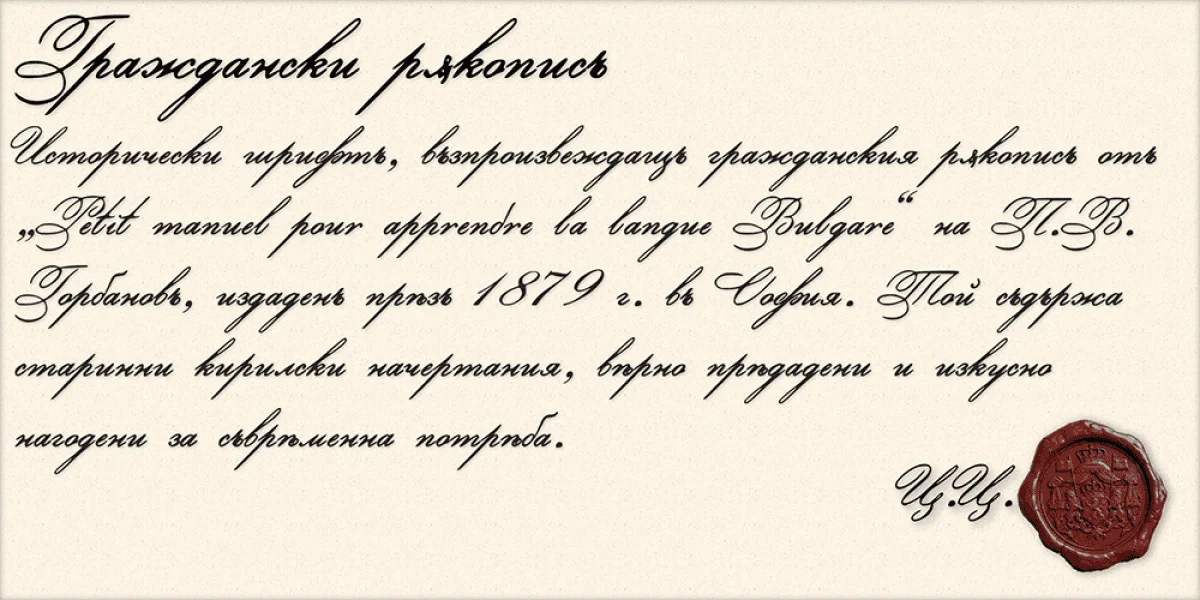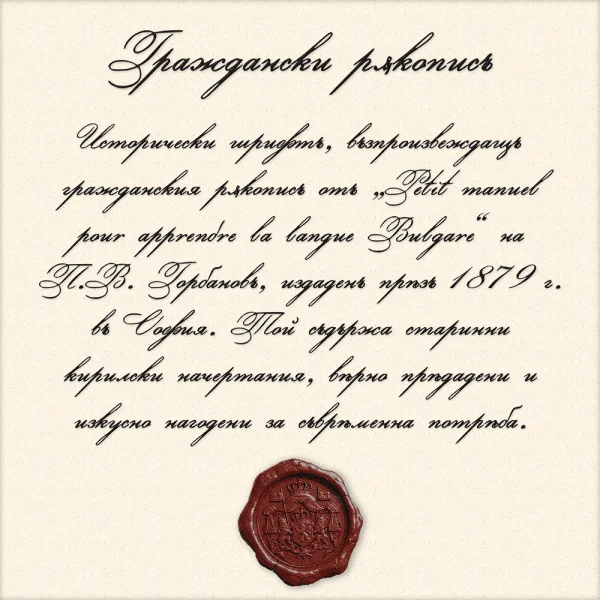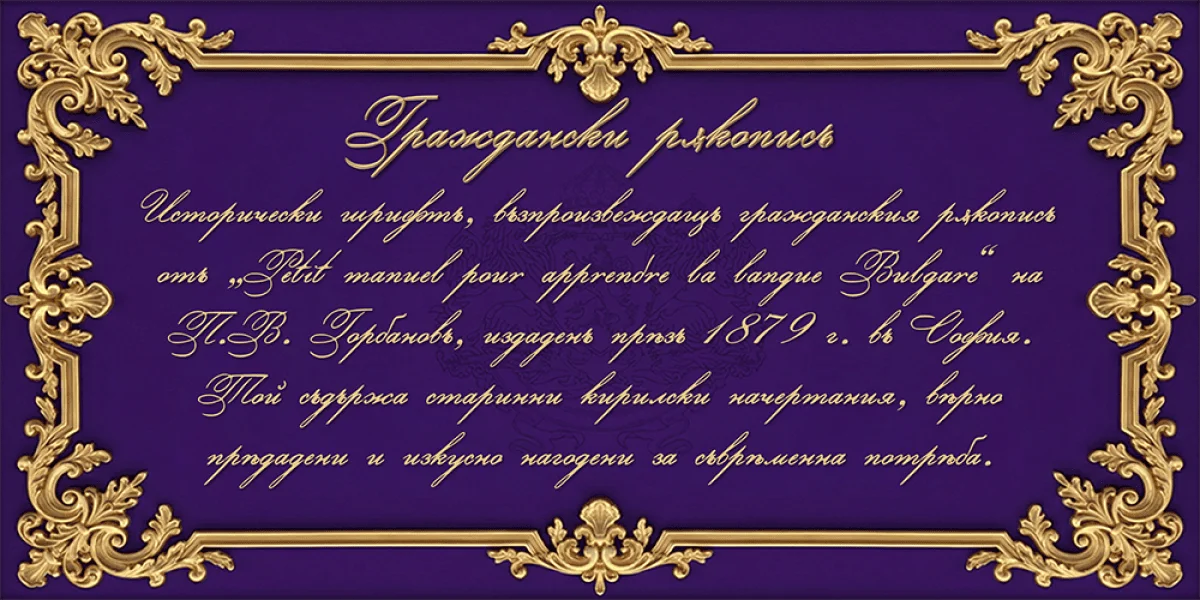
“Civil Manuscript” (original name: „Граждански рѫкописъ“) is a historical Cyrillic font inspired by late 19th-century Bulgarian typography and orthography. It is based on the 1879 work “Petit manuel pour apprendre la langue Bulgare” by P. V. Gorbanoff, published in Sofia.
The font features extended Cyrillic characters and faithfully preserves historical glyphs stylised for modern usage, including: ѣ (Yat), ѫ (Big Yus) and ѭ (Iotified Big Yus).